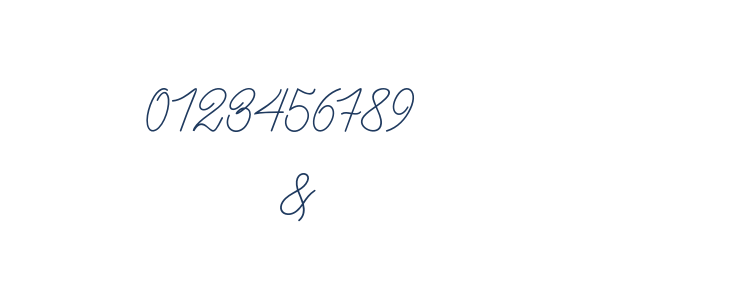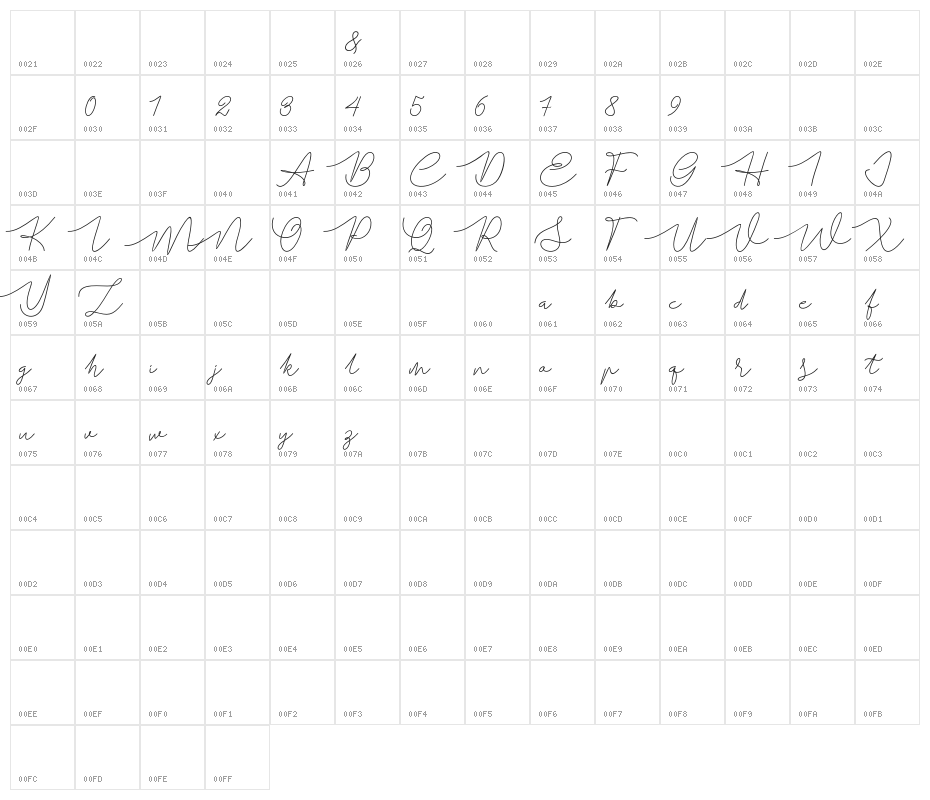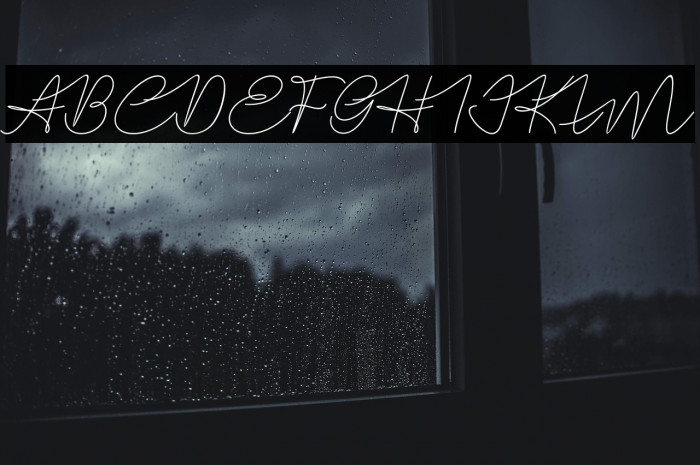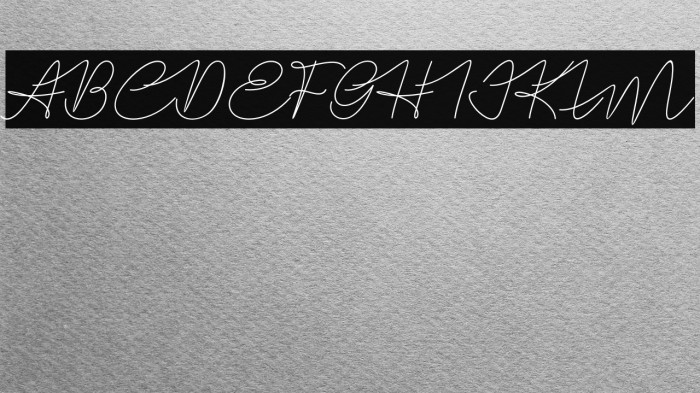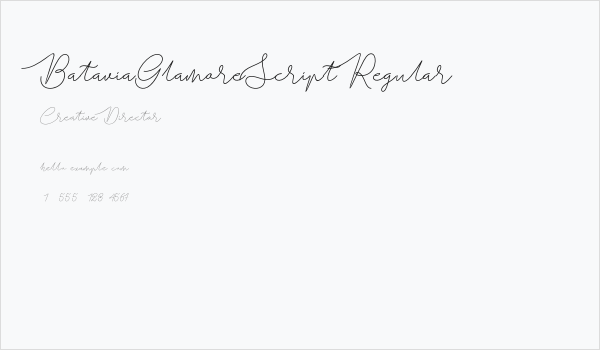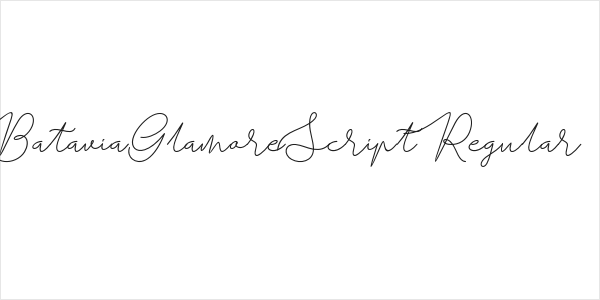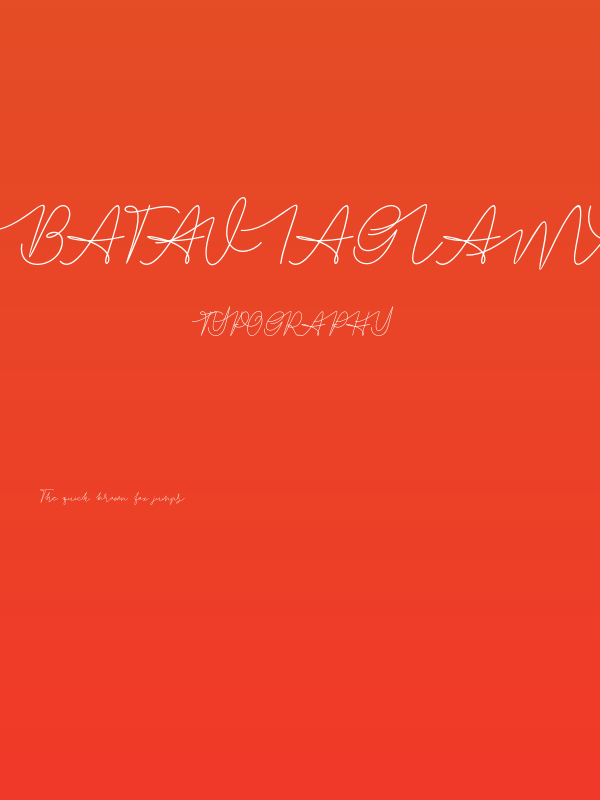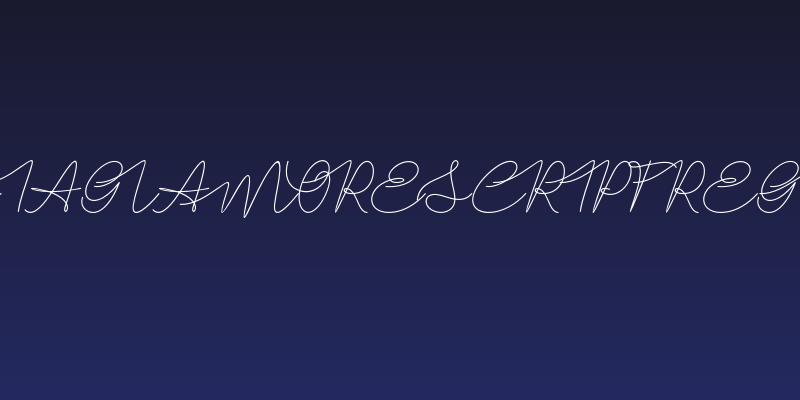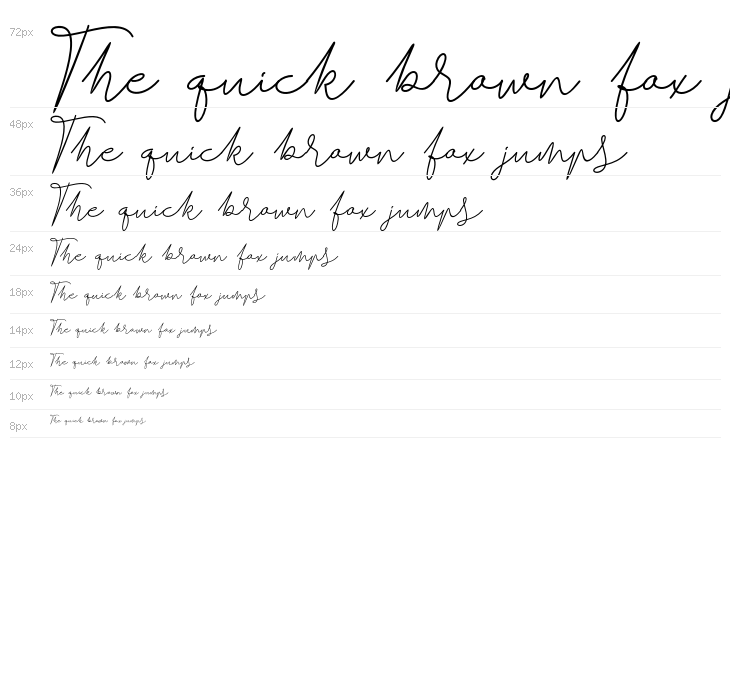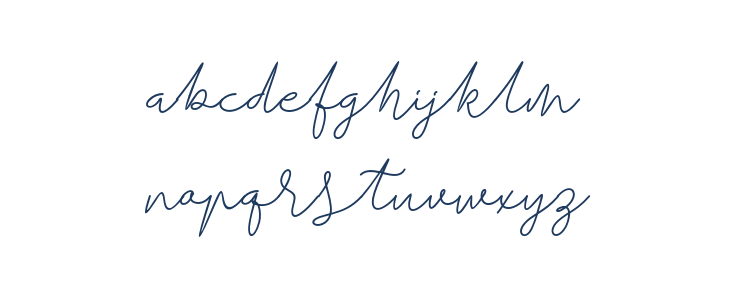
BataviaGlamoreScript-Regular Font
BataviaGlamoreScript-Regular Description
This font exudes elegance and sophistication with its fluid, cursive style. The letters are intricately connected, creating a seamless flow that mimics natural handwriting. Each character is crafted with delicate strokes, giving it a refined and graceful appearance. The uppercase letters are slightly more elaborate, adding a touch of grandeur, while the lowercase letters maintain a consistent rhythm. The numerals and special characters are designed to match the overall aesthetic, ensuring a cohesive look across all text. This font is perfect for projects that require a personal and artistic touch.
| Overall Style | Elegant |
| Use Case | Logos, Invitations, Artistic projects |
| Proposed Projects | Ideal for wedding invitations, elegant branding, personal stationery, and artistic projects. |